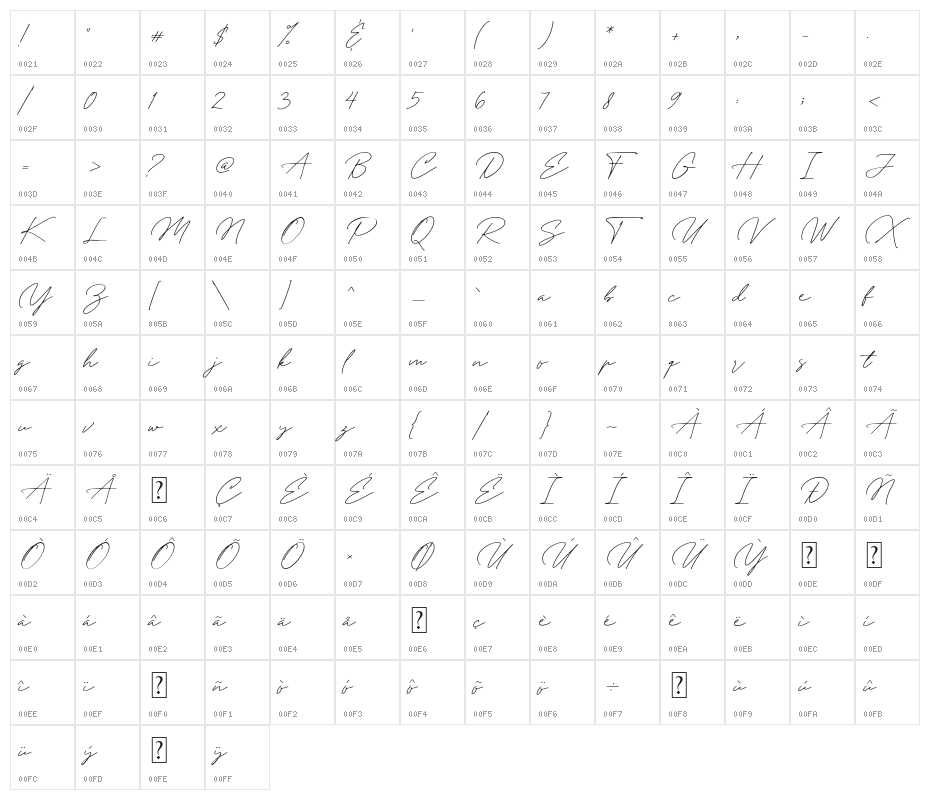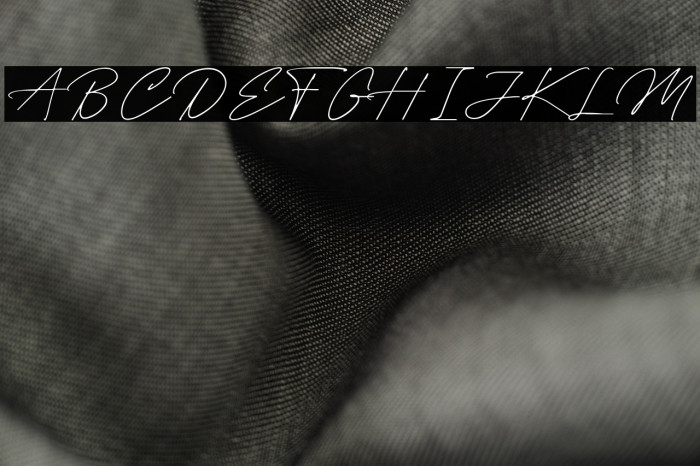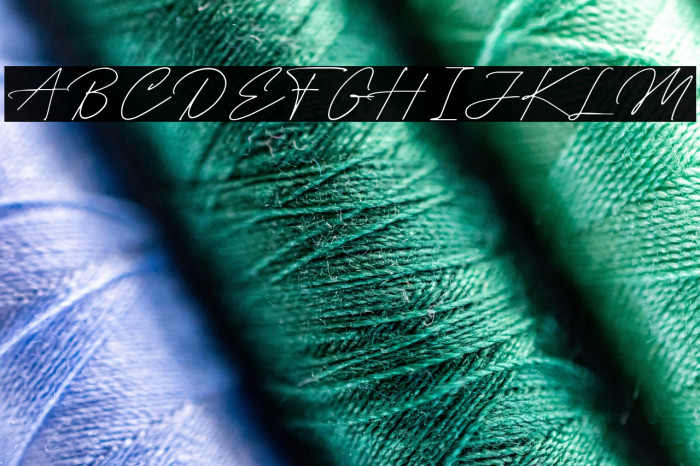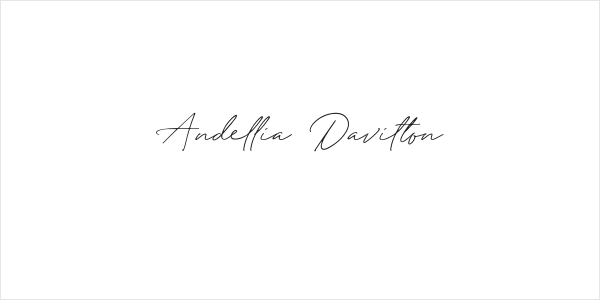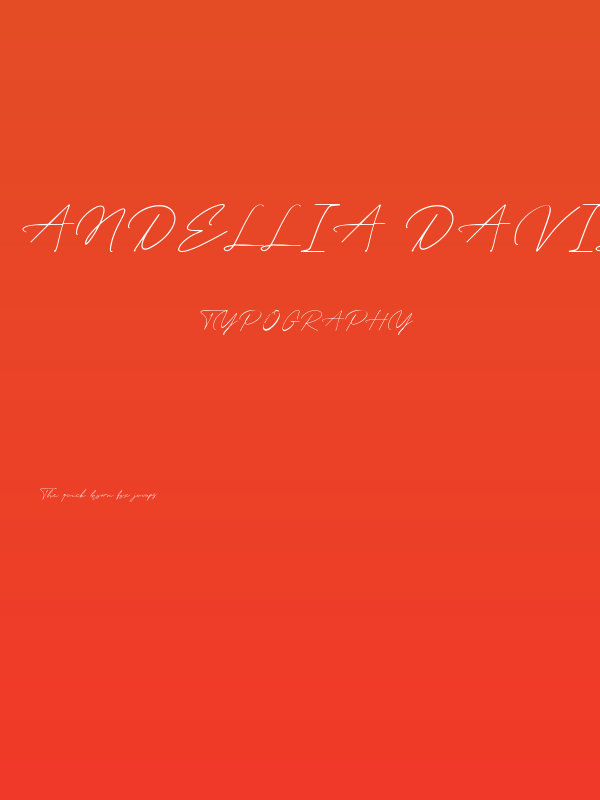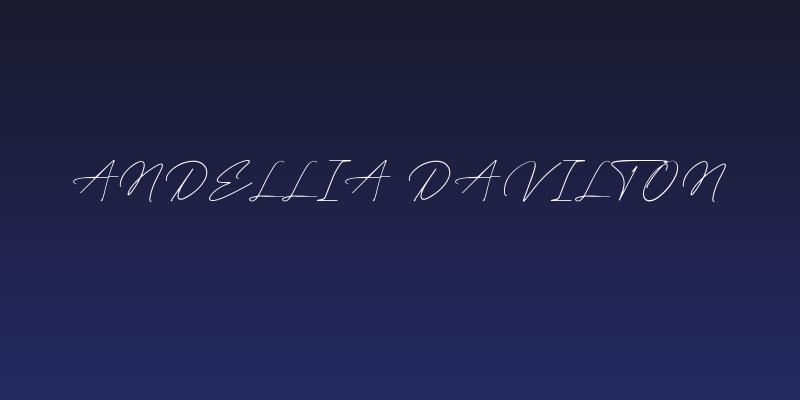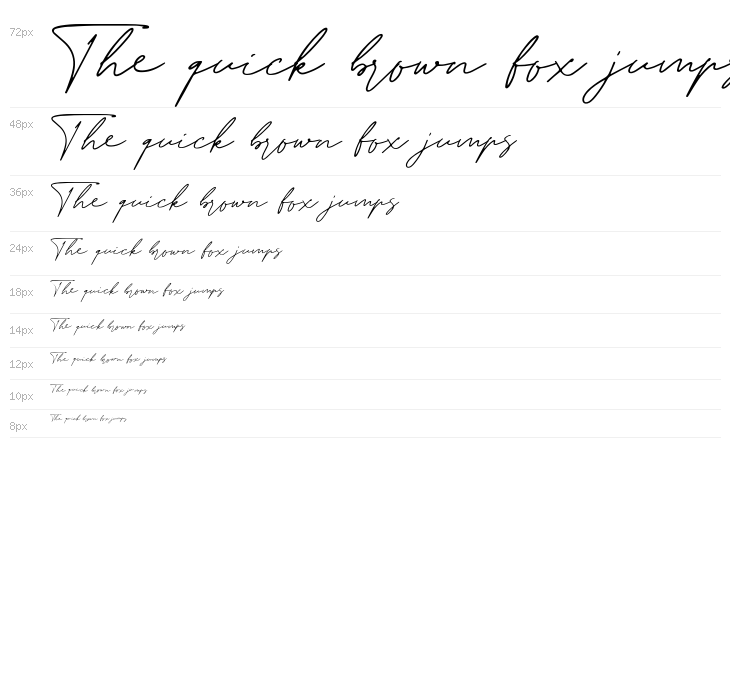
Andellia Davilton Font
Andellia Davilton Description
This elegant script font features a fluid and graceful style, characterized by its smooth, flowing lines and delicate curves. Each letter is intricately designed to mimic the natural motion of handwriting, providing a personal and sophisticated touch. The uppercase letters are slightly more ornate, with extended flourishes that add a sense of drama and elegance. The lowercase letters maintain a consistent rhythm, enhancing readability while preserving the font's artistic flair. Numbers and special characters are seamlessly integrated, maintaining the overall aesthetic. This font is perfect for projects that require a touch of elegance and sophistication.
Overall StyleElegant
Use CaseLogos, Invitations, Branding
Proposed ProjectsIdeal for wedding invitations, elegant branding, personal stationery, and high-end product packaging.